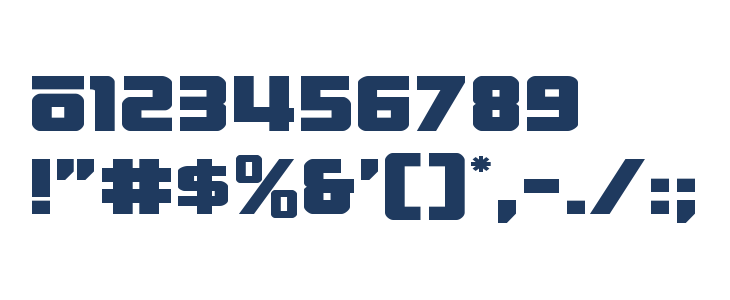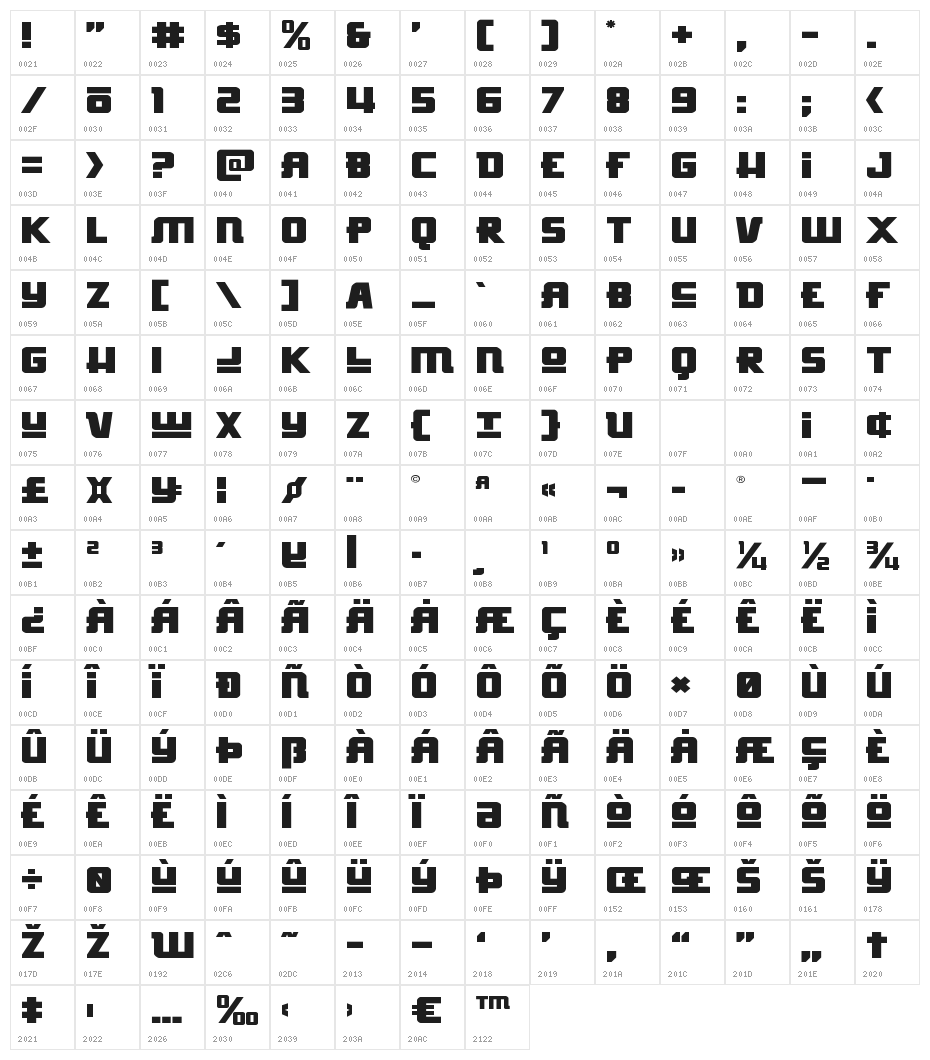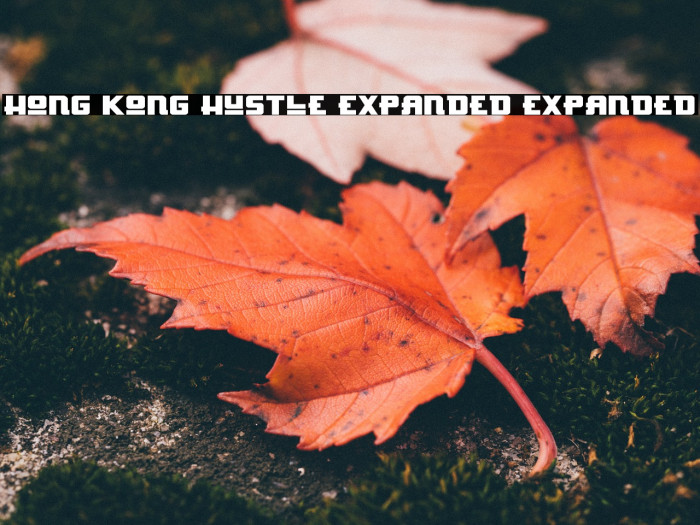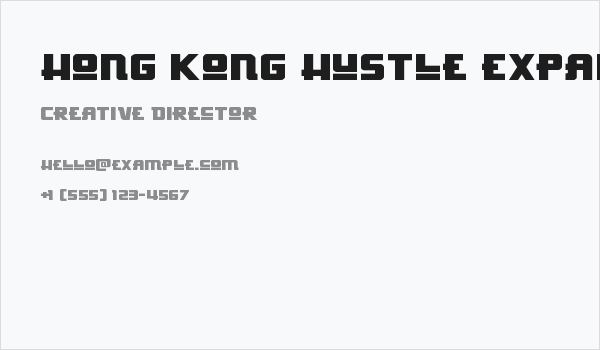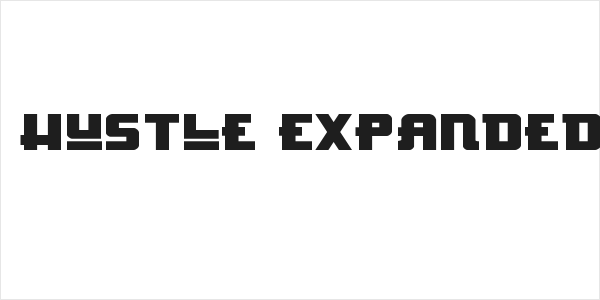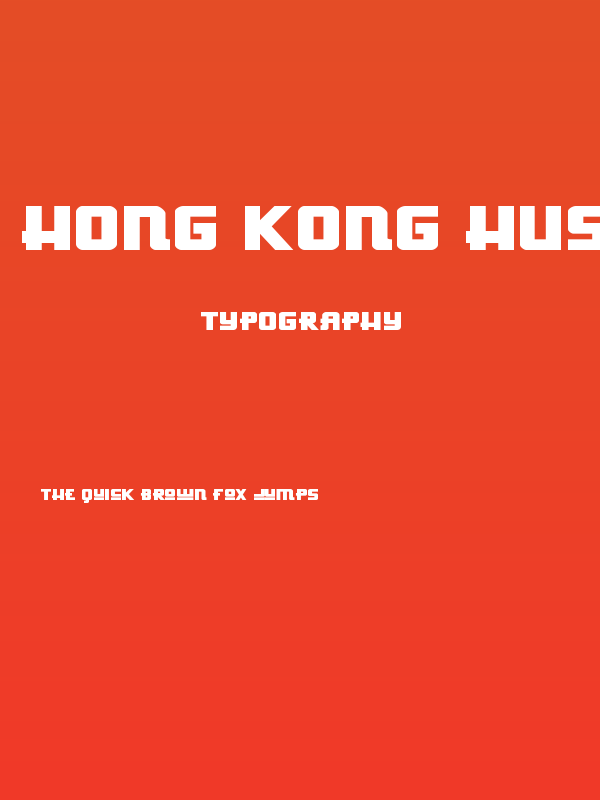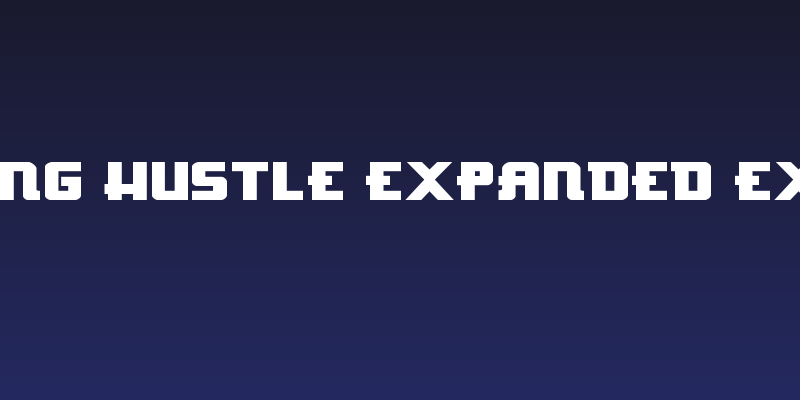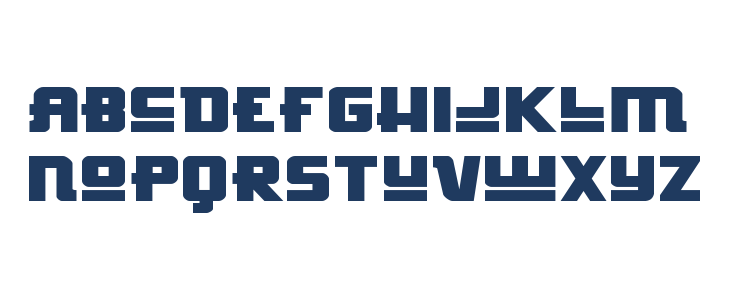
Hong Kong Hustle Expanded Font
Hong Kong Hustle Expanded Description
This font features a bold, geometric design with a distinctly modern and urban feel. The characters are constructed with thick, block-like shapes, giving them a strong and impactful presence. The style is reminiscent of street art or graffiti, with a futuristic twist. The uppercase and lowercase letters maintain a consistent weight, creating a uniform appearance across the board. The numerals and special characters follow the same design principles, ensuring cohesion throughout the font. The expanded width of the characters adds to the boldness, making it ideal for attention-grabbing headlines or branding projects.
| Proposed Projects | Ideal for streetwear branding, urban-themed posters, video game titles, and modern advertising campaigns. |